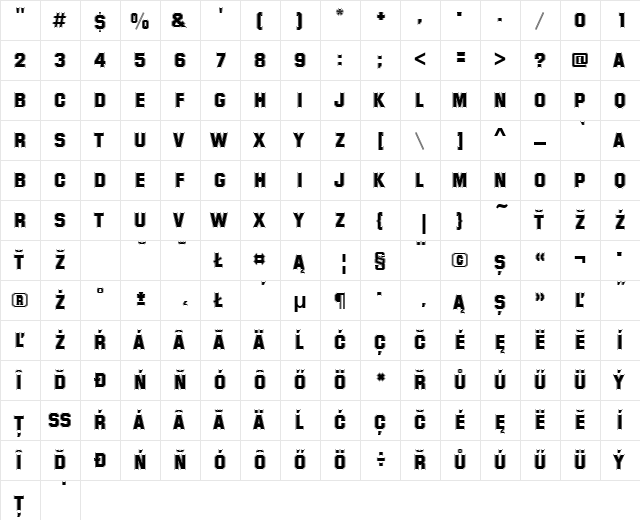
SuperstarDEE Regular
Design Context for SuperstarDEE Typeface
SuperstarDEE offers clean, dependable letterforms without strong stylistic allegiance, making it a practical choice for designers who need flexibility.